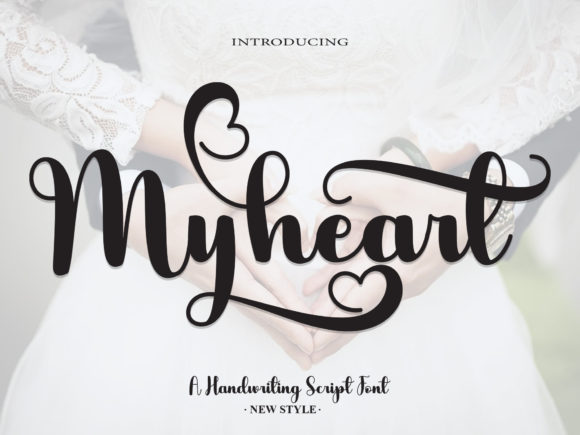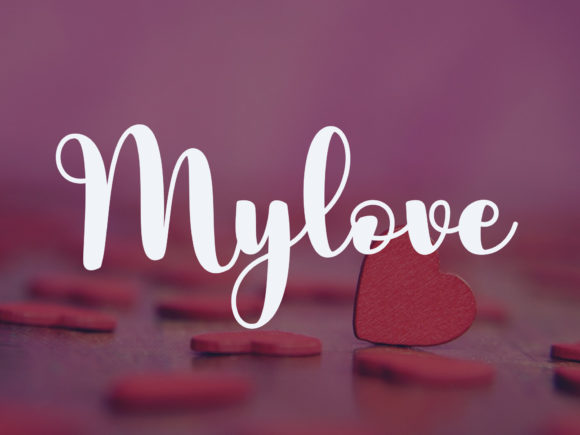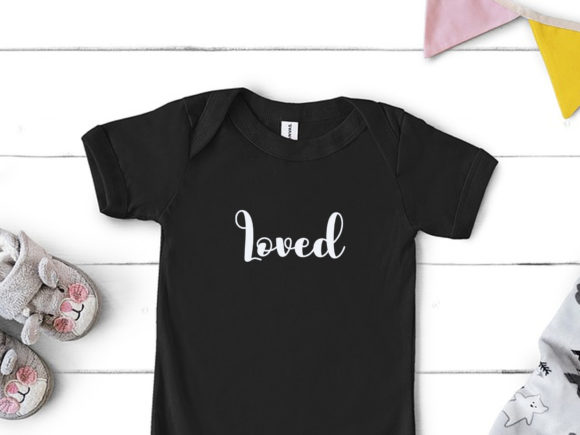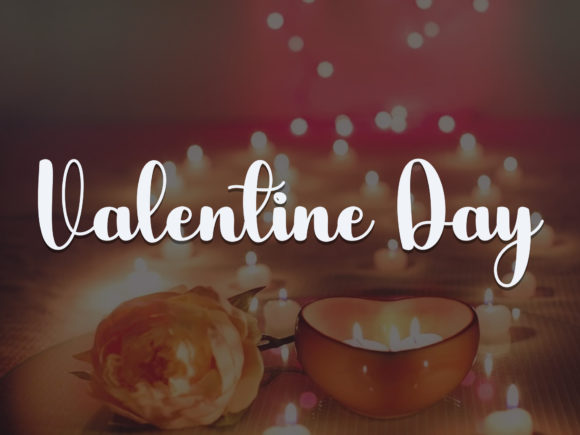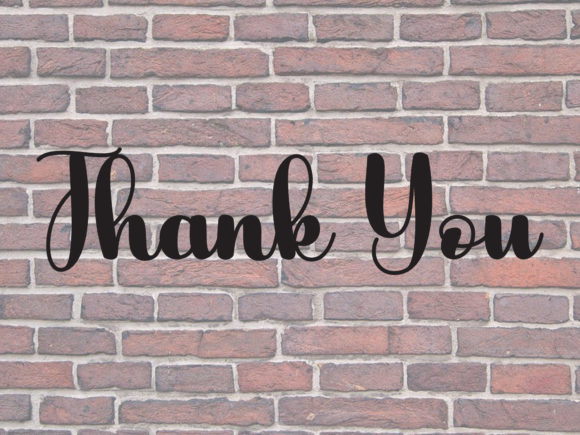
Myheart Font
About Myheart Font
“Myheart” embodies the essence of delicacy and uniqueness with its carefully crafted handwritten style. Perfect for a wide array of design purposes, this font adds a cool and distinctive touch to any project. Whether it’s letters, invitations, food product labels, titles, or beyond, “Myheart” brings a sense of charm and individuality to your designs.
With its graceful strokes and subtle intricacies, “Myheart” lends a touch of elegance to your creations, elevating them to new heights of sophistication. Whether you’re crafting heartfelt messages, inviting guests to special occasions, labeling gourmet treats, or creating eye-catching titles, this font adds a dash of personality and style that sets your work apart.
The versatility of “Myheart” ensures its suitability for a diverse range of applications. Whether you’re designing for print or digital platforms, this font adapts seamlessly to various mediums, ensuring consistency and readability across different formats. Its unique character adds a layer of visual interest to your designs, captivating audiences and leaving a lasting impression.
Moreover, “Myheart” is designed with usability in mind, making it easy to incorporate into your projects with minimal effort. Its clean and legible letterforms ensure clear communication, allowing your message to shine through without any distractions. Whether you’re a seasoned designer or a novice enthusiast, “Myheart” offers a user-friendly experience that enhances your creative process.
In addition to its aesthetic appeal, “Myheart” is also optimized for versatility, making it suitable for a wide range of design styles and themes. Whether you’re aiming for a romantic look, a playful vibe, or a minimalist aesthetic, this font adapts effortlessly to your vision, enhancing the overall impact of your designs. Its versatility makes it a valuable asset for designers seeking to express their creativity across diverse projects and genres.
In conclusion, “Myheart” is more than just a font—it’s a versatile tool that empowers designers to create cool and unique designs that resonate with audiences. Its delicate handwritten style, coupled with its usability and versatility, makes it a valuable addition to any designer’s toolkit. Whether you’re crafting heartfelt messages, elegant invitations, stylish product labels, or captivating titles, “Myheart” brings a touch of charm and sophistication to every project.